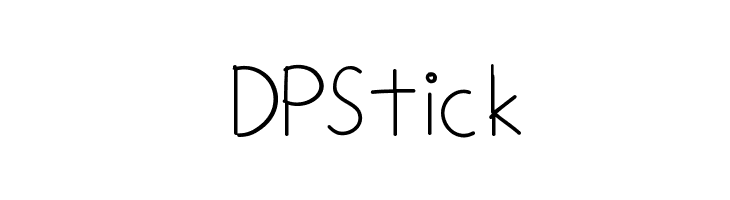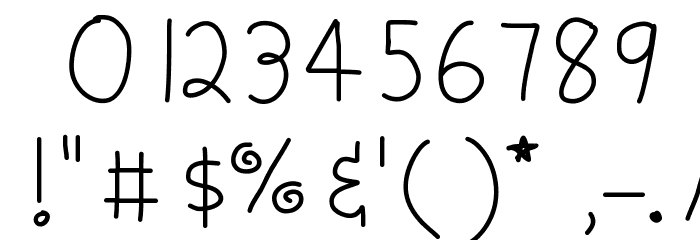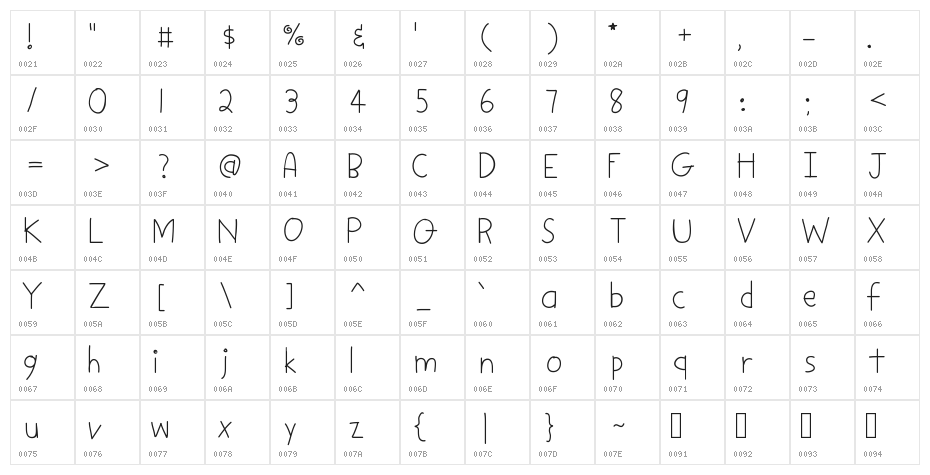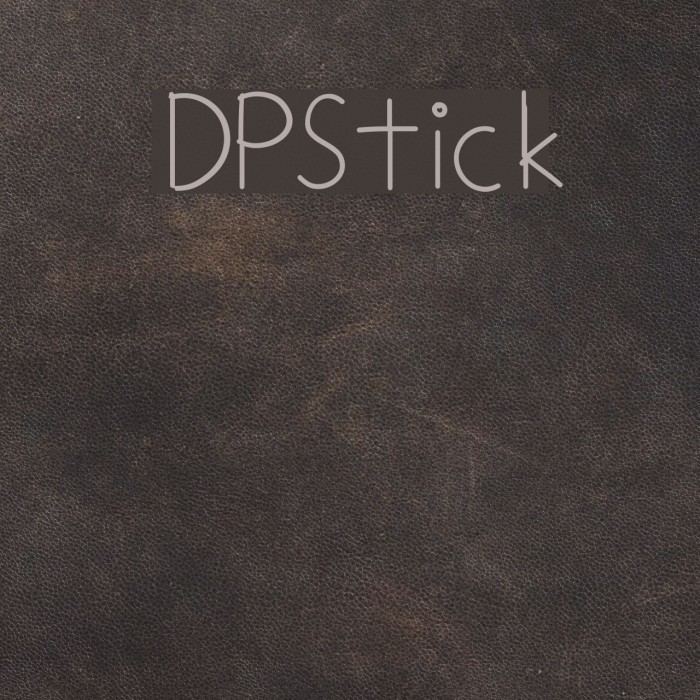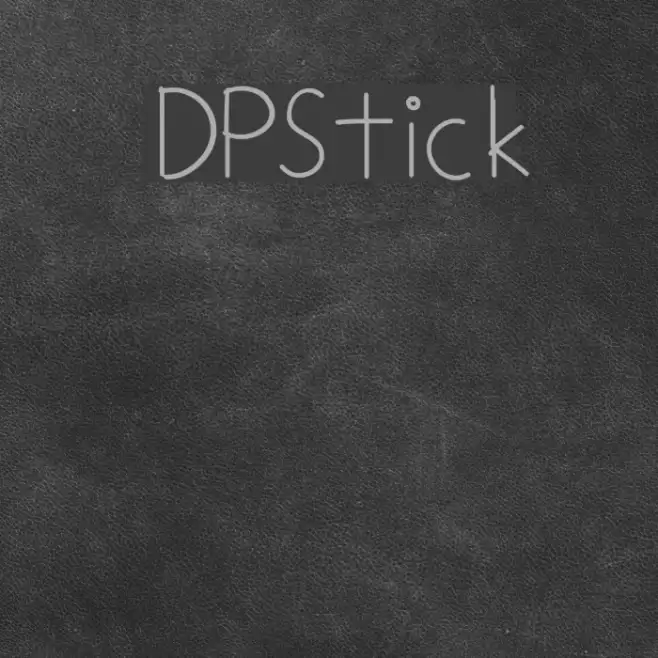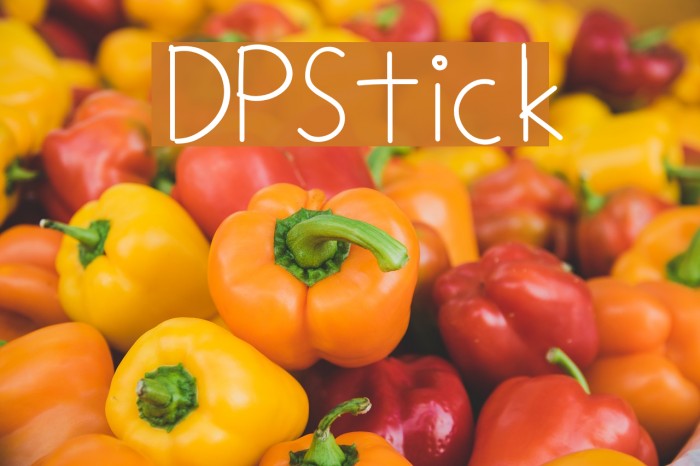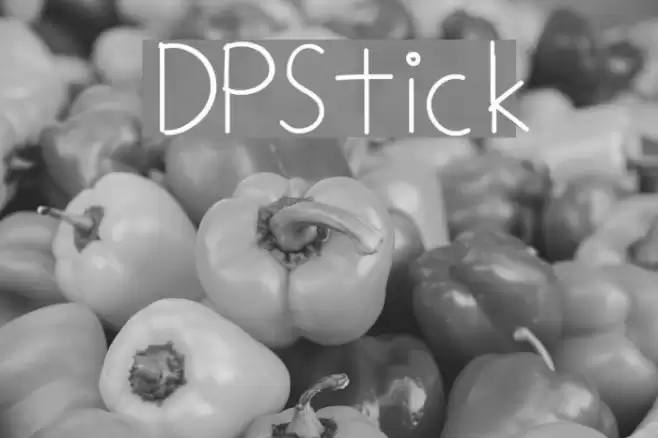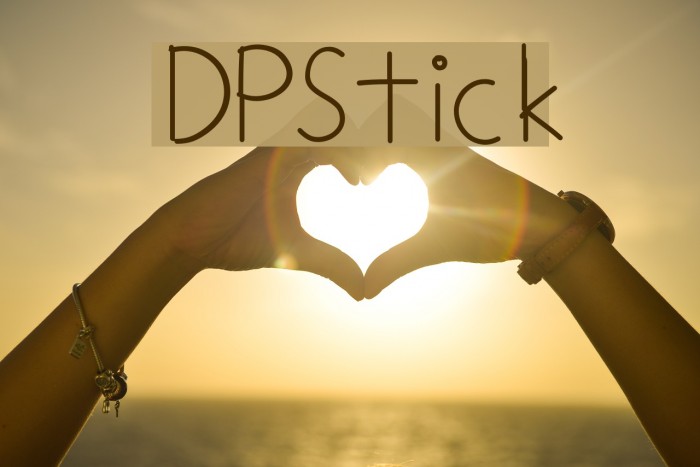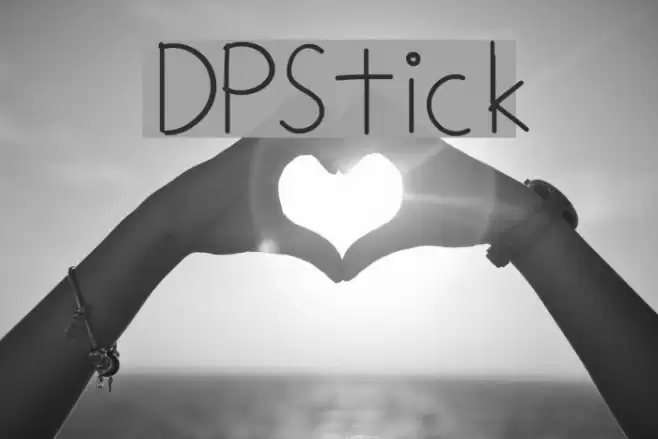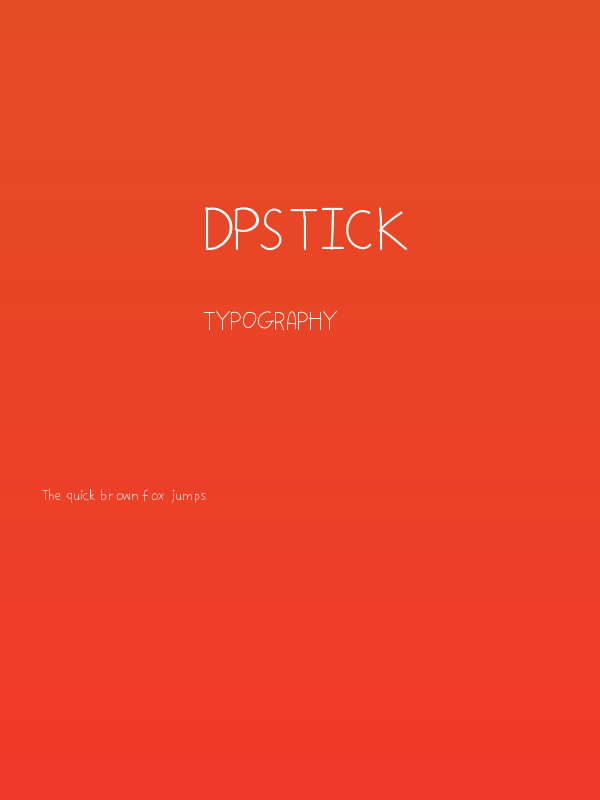
DPStick Font
DPStick Description
This font features a playful and informal style with a handwritten appearance. The characters are slightly irregular, adding a whimsical touch. The strokes are consistent in thickness, giving it a uniform look despite its casual nature. The uppercase letters are tall and narrow, while the lowercase letters maintain a similar height, contributing to a cohesive design. The numbers are rounded and align well with the overall style. Special characters are creatively integrated, maintaining the font's playful essence. This font is suitable for projects that require a friendly and approachable feel.
| Use Case | Headlines, Informal text, Branding |
| Proposed Projects | Ideal for children's books, casual invitations, playful branding, and informal digital content. |